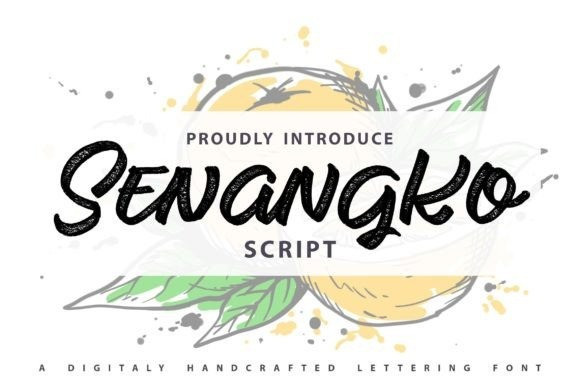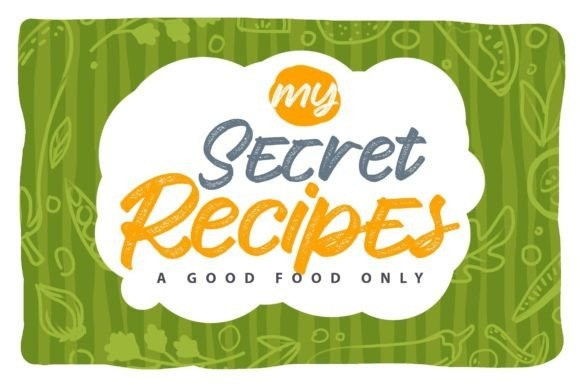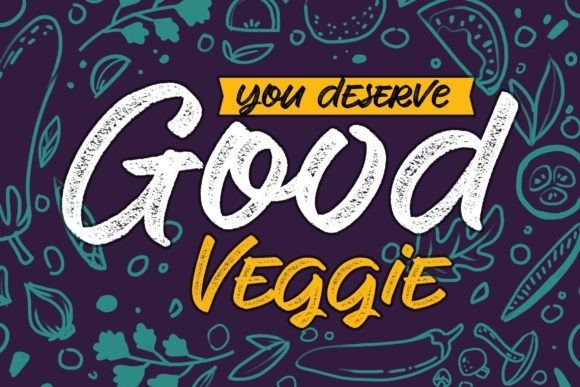
Senangko Font
Senangko is a fancy and elegant handcrafted font that was created to impress your audience and make your branding shine. Make your projects dance with this elegant and wonderful font wherever you use it.